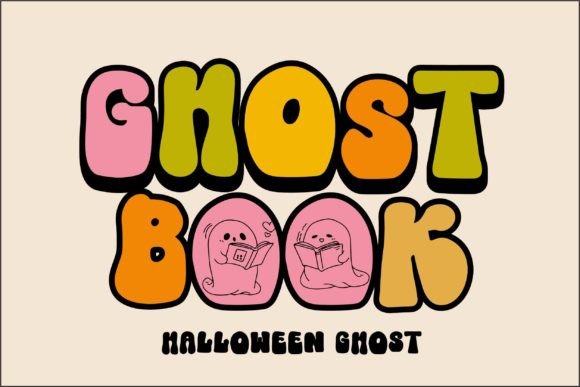
Introducing Ghost Book Font, the bewitching display font that will cast a spell on your Halloween designs. Unleash the spirited charm of this all-caps bold font, meticulously crafted to capture the essence of the haunting holiday.
With Ghost Book Font, your Halloween projects will take on a life of their own. Imagine the eerie elegance of your party invitations, the spine-tingling atmosphere of your decorations, and the mischievous delight of your spooky crafts – all brought to life by this hauntingly beautiful font.
Feel the thrill of the unknown as you witness the transformation of your words into captivating spells, each letter a ghostly whisper that will send shivers down the spines of your audience. Let Ghost Book Font be your guide into the realm of the supernatural, where your creativity takes flight on the wings of darkness.
But beware, dear spellcaster, for the power of Ghost Book Font is not to be underestimated. Its captivating curves and enchanting glyphs hold the power to cast a lasting enchantment on your audience, leaving them under the spell of your creative genius.
So, embrace the enchanting allure of Ghost Book Font and let your imagination run wild. Conjure up designs that will haunt the minds of your audience long after the Halloween moon has set. Let the spirits of creativity guide your hand as you weave tales of mystery and magic with every letter you type.